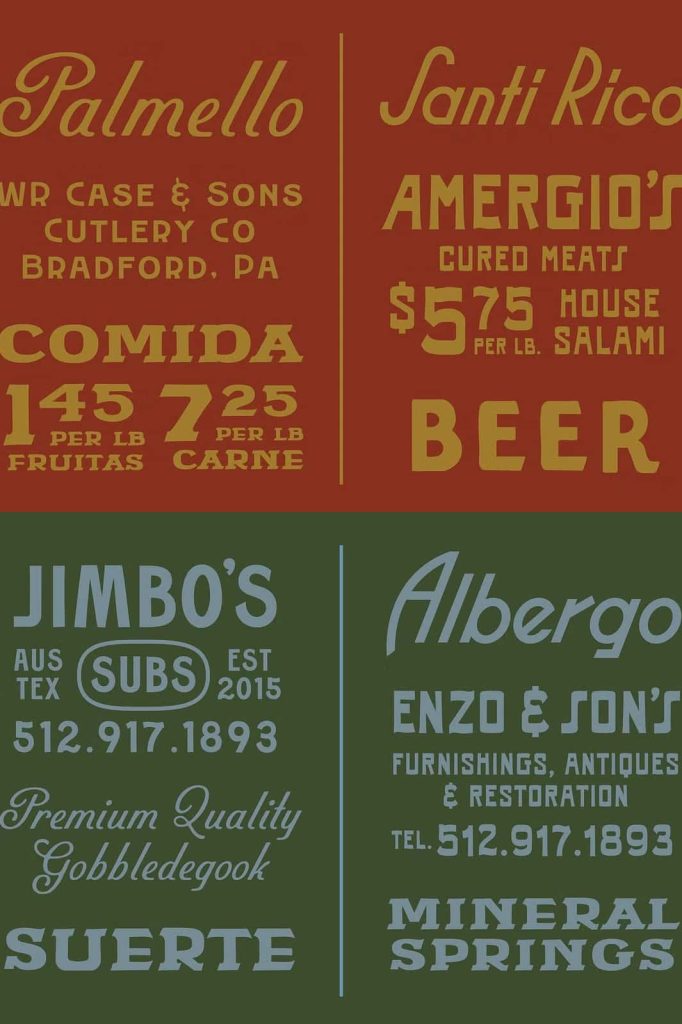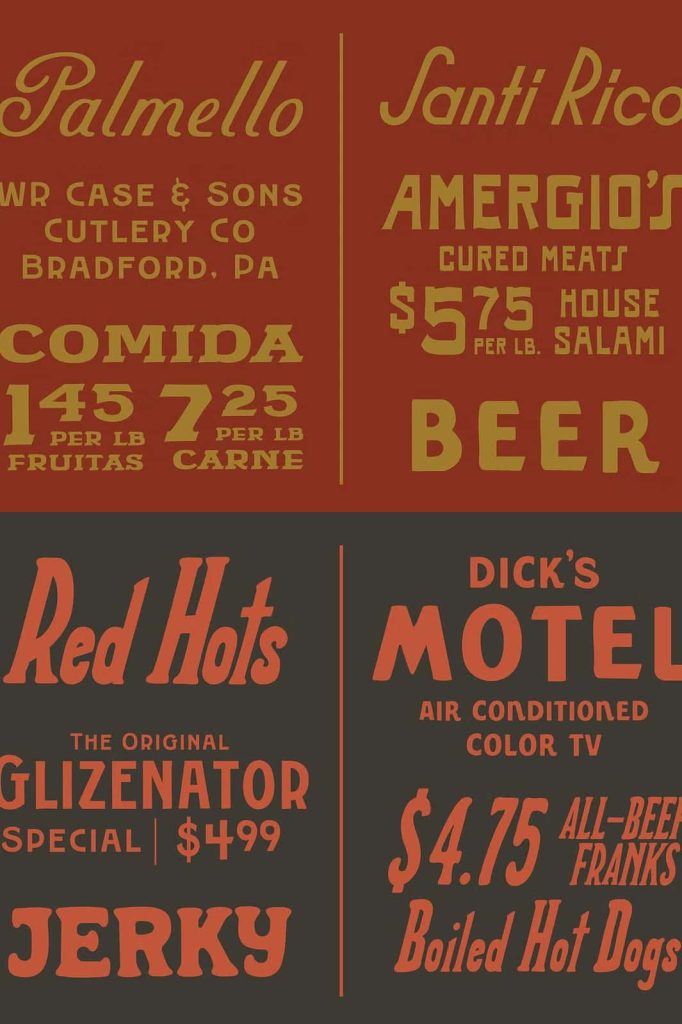
The SAMPLE Font Collection: Hand-Drawn Character with Vintage Soul
The SAMPLE Font Collection brings together a carefully crafted set of hand-drawn typefaces inspired by hand-lettered artwork, vintage signage, and historic logos. Each font in this collection captures the expressive charm of traditional craftsmanship while delivering the flexibility required for modern design projects.
Designed to work seamlessly together, these typefaces create a cohesive and authentic visual language. They add warmth, texture, and personality to branding, packaging, editorial layouts, and digital platforms. If you want typography that feels human, storied, and full of character, this hand-drawn vintage font collection provides exactly that.
Inspired by Hand-Lettered Artwork and Vintage Signage
The SAMPLE collection draws strong inspiration from the golden age of sign painting and classic hand-lettered design. Designers studied historic storefront signs, retro advertisements, and iconic logo marks to capture their unique rhythm and personality. The result is a set of fonts that feel organic and alive.
Each letterform carries subtle imperfections that mirror real ink strokes, brush movements, and handcrafted details. These imperfections do not weaken the design. Instead, they strengthen its authenticity and visual appeal. The collection celebrates the beauty of human touch in a world dominated by sterile digital typography.
Historic Logos Reimagined for Modern Use
Many typefaces in this collection echo the structure and balance of historic logos. They reinterpret classic proportions and decorative nuances while refining them for contemporary applications. This approach ensures that your projects feel timeless rather than outdated.
By blending nostalgia with modern precision, the SAMPLE collection allows designers to build brand identities that feel rooted in tradition yet relevant in today’s competitive market.
Designed to Work Seamlessly Together
One of the strongest advantages of the SAMPLE Font Collection lies in its intentional harmony. Every font complements the others in weight, spacing, and stylistic tone. You can mix and match them across headlines, subheadings, and body elements without worrying about visual conflict.
This cohesive system saves time during the design process. Instead of searching endlessly for matching typefaces, you can rely on a unified toolkit built for versatility and consistency.
Create Layered and Dynamic Typography
Use a bold hand-drawn display style for headlines. Pair it with a more refined companion font for supporting text. Add decorative accents to emphasize key words. The collection empowers you to build layered compositions that feel intentional and expressive.
Because the fonts share a common design DNA, your layouts maintain harmony even when you experiment with scale, alignment, and hierarchy.
Warmth, Character, and a Handcrafted Feel
The SAMPLE Font Collection delivers more than visual style. It communicates emotion. The handcrafted details evoke nostalgia, trust, and authenticity. These qualities make the collection especially powerful for brands that value storytelling and personal connection.
The warmth embedded in each letterform softens layouts and adds approachability. Unlike rigid geometric typefaces, these hand-drawn designs invite the viewer in and create a memorable visual experience.
Perfect for Branding and Packaging
This collection excels in projects that require personality and distinction. It performs exceptionally well in:
- Artisan and handmade product packaging
- Coffee shops, bakeries, and boutique branding
- Vintage-inspired apparel graphics
- Editorial headlines and magazine covers
- Logo design and brand identity systems
- Social media graphics with a handcrafted aesthetic
Whether you design for small businesses or large creative campaigns, these fonts help you communicate authenticity and craftsmanship with confidence.
Optimized for Modern Design Workflows
While rooted in traditional inspiration, the SAMPLE collection adapts seamlessly to modern workflows. Each typeface is carefully digitized for clarity and consistency. The balance between hand-drawn charm and technical precision ensures reliable performance across print and digital media.
Use these fonts in high-resolution print projects such as posters, packaging labels, and merchandise. Apply them to websites, online stores, and promotional banners without sacrificing legibility or impact.
Balance Tradition with Contemporary Design
The collection encourages designers to blend old-world influence with modern layouts. Combine bold hand-lettered headlines with minimal photography. Pair rustic typography with clean grid systems. This contrast creates striking compositions that feel both grounded and forward-thinking.
Why Choose the SAMPLE Font Collection?
The SAMPLE Font Collection stands as a powerful toolkit for designers who value authenticity and cohesion. It offers:
- Hand-drawn typefaces inspired by vintage signage and historic logos
- A unified system designed for seamless pairing
- Warm, organic letterforms full of personality
- Versatility across branding, packaging, and editorial projects
- A handcrafted aesthetic refined for modern design standards
This hand-drawn vintage font collection empowers you to create work that feels meaningful and distinctive. It transforms ordinary layouts into expressive visual stories. When you choose the SAMPLE Font Collection, you choose typography that honors tradition while driving contemporary creativity forward.